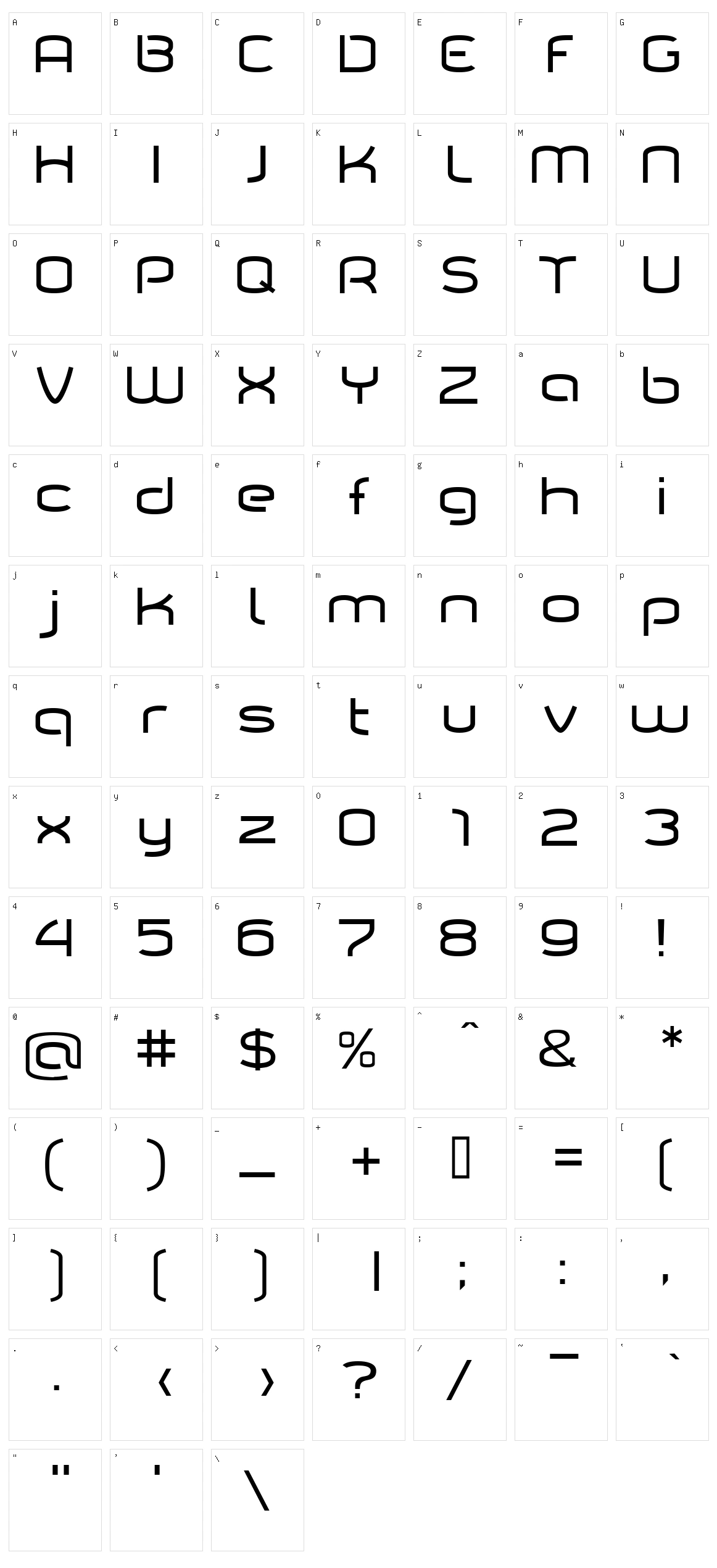
The free font Tarpino is carefully designed by Raffi, showcasing a thoughtful balance of creativity and usability and falls under the Sans serif font style. When you download the ZIP file, it contains only 22.29 KB of font files, making it lightweight and quick to download. Please review the license details below to understand permitted usage and distribution rights. If license information is not available, we recommend using this font for personal projects only or contacting the author directly for commercial usage permissions.